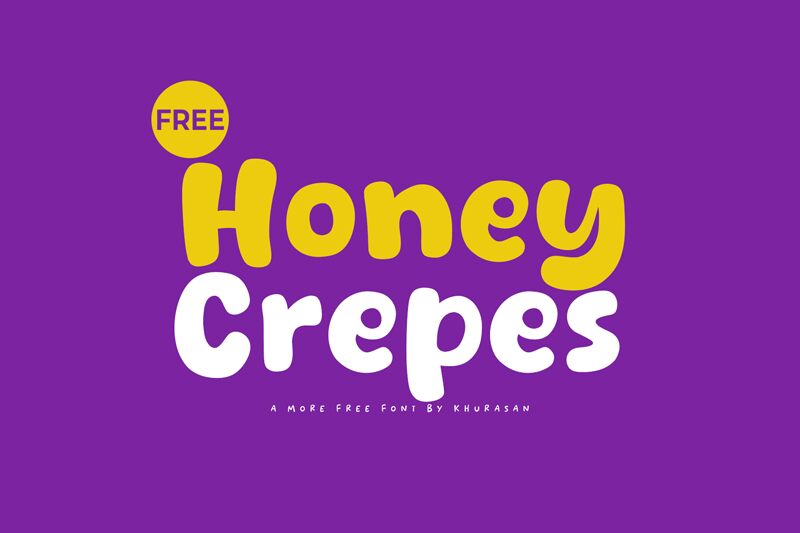
Honey Crepes, designed by Khurasan, is a bold, cartoon-style display font that exudes a playful and whimsical charm. With its thick, rounded strokes and exaggerated curves, this font captures a delightful, handcrafted aesthetic that instantly grabs attention. The unique character shapes and organic flow of the letterforms create a captivating visual experience, evoking a sense of childlike wonder and playfulness.
This versatile font lends itself well to a variety of design projects, from children's book covers and packaging to branding, logos, and advertising campaigns. Its bold presence and distinctive personality make it an excellent choice for adding a touch of playfulness and visual interest to any design. Whether you're creating a fun, vibrant brand identity or seeking to bring a lighthearted touch to your next project, Honey Crepes is a captivating font that is sure to delight and engage your audience.